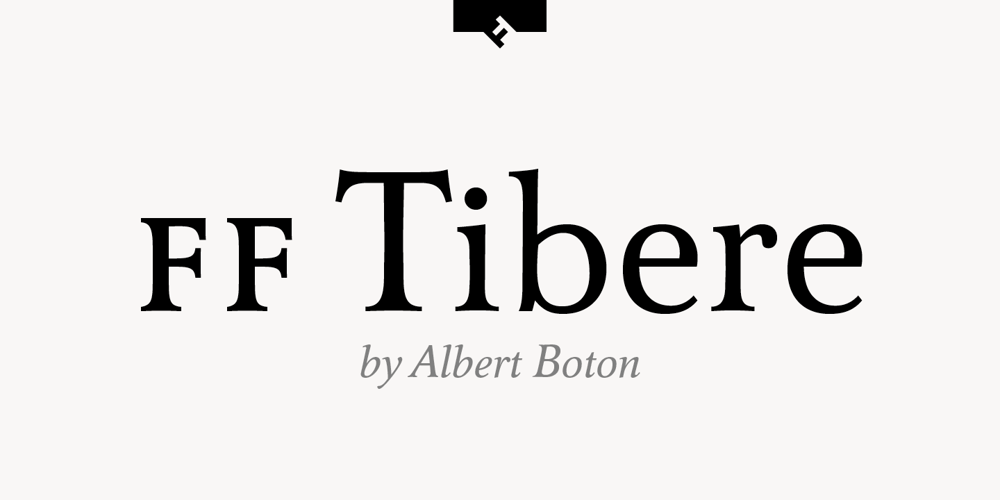
FF Tibere
FF Tibere Font Family was designed by Albert Boton and published by FontFont. FF Tibere contains 7 styles and family package options. French type designer Albert Boton created this serif FontFont in 2003. The family has 7 weights, ranging from Light to Bold (including italics) and is ideally suited for book text, film and tv, editorial and publishing as well as small text. FF Tibere provides advanced typographical support with features such as swashes, ligatures, small capitals, petite capitals, alternate characters, and case-sensitive forms. It comes with a complete range of figure set options – oldstyle and lining figures, each in tabular and proportional widths.